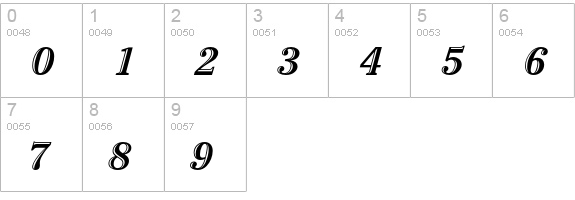
CheltenhamHandICG-Italic is a distinctive, italic variant in the CheltenhamHandICG typeface family \xE2\x80\x94 well suited to design and typography projects.
CheltenhamHandICG-Italic is a sophisticated and elegant font that exudes a sense of refinement and charm. Its graceful italic style adds a touch of flair to any design project, making it perfect for invitations, branding, and other creative endeavors. The flowing lines and delicate curves of CheltenhamHandICG-Italic create a sense of movement and grace, capturing the eye and drawing the reader in. Best of all, this stunning font is available for free download at FontsMarket.com. Whether you're a professional designer or a DIY enthusiast, CheltenhamHandICG-Italic offers a versatile and stylish option for your typographic needs. Download it today and add a touch of sophistication to your projects.